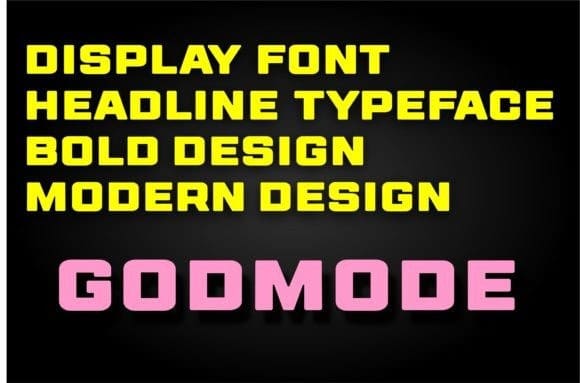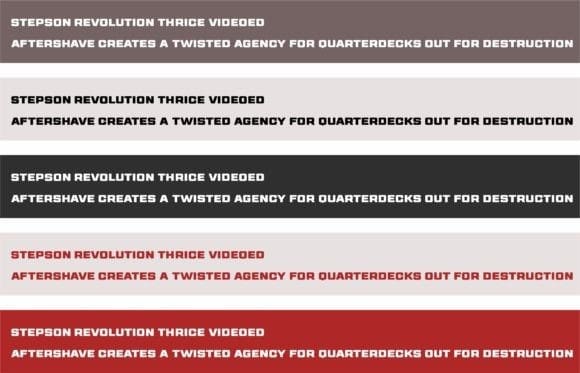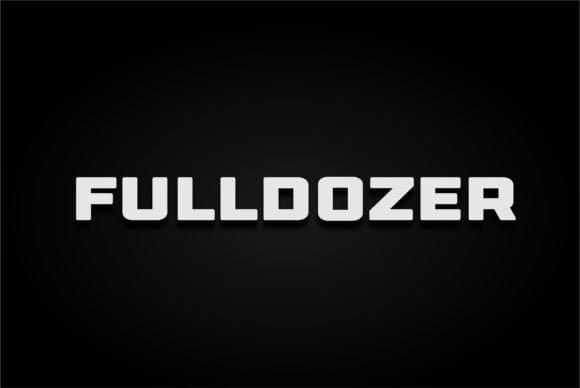
Fulldozer Display Font
Fulldozer Display Font, doesn’t just speak; it roars. With a robust and assertive presence, every character demands to be noticed, making it the perfect choice for headlines that refuse to be ignored.
Elegance in Simplicity: While bold, FULLDOZER maintains an inherent elegance through its sleek and minimalist design. Each letter is carefully crafted to strike the delicate balance between strength and sophistication.
Versatile Application: Whether it’s a website header, a logo, product packaging, or any creative project, FULLDOZER adapts seamlessly. Its versatility ensures that your message is delivered with the impact it deserves across various design mediums.
Distinctive Personality: FULLDOZER Display is not just a font; it’s a statement. Infuse your designs with a distinctive personality that sets them apart from the ordinary. This font embodies a spirit of innovation and uniqueness, making it a valuable asset for your creative endeavors.
Attention to Detail: Each curve, line, and contour of FULLDOZER has been meticulously crafted, reflecting a commitment to precision and detail. This attention to craftsmanship ensures a polished, professional finish in every application.